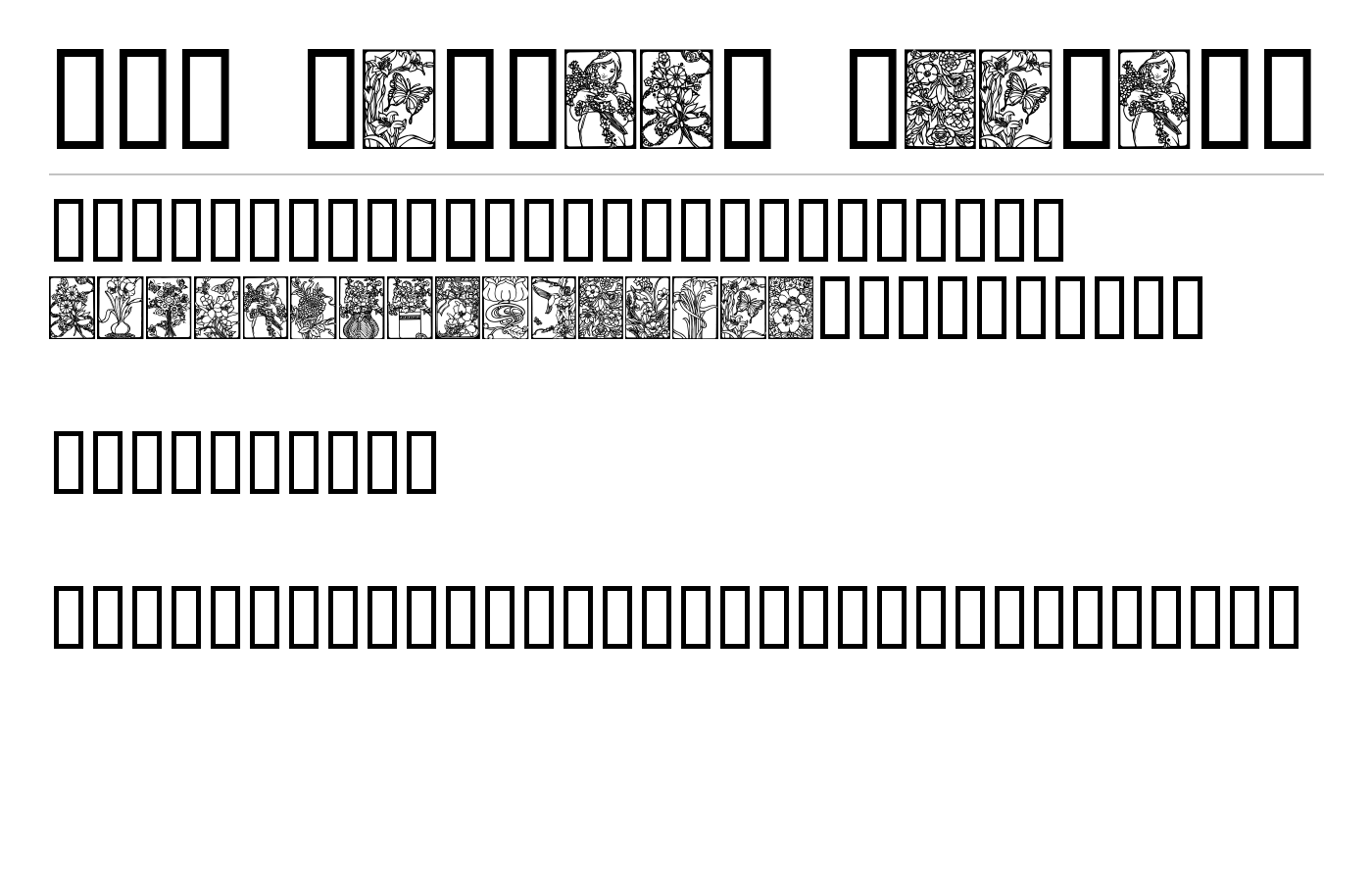
Art Nouveau Flowers is a decorative display font featuring intricate floral and nature-inspired illustrations within each glyph, capturing the elegant, organic curves characteristic of the Art Nouveau style. This ornamental typeface is perfect for creative projects needing a vintage, artistic touch, such as posters, invitations, or branding that seeks to evoke a timeless, sophisticated beauty with a strong visual impact.
Art Nouveau Flowers Font
About Art Nouveau Flowers Font